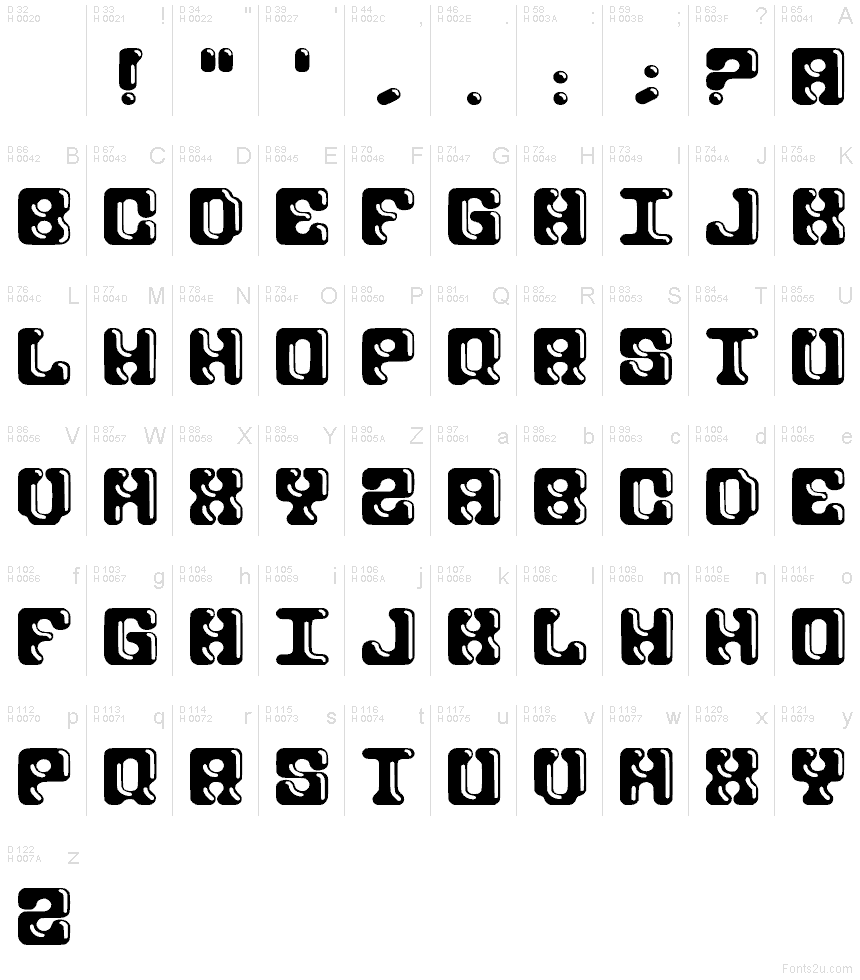
Chuche font by Diego Andaluz is a free groovy display typeface with an unmistakably squishy, puzzle-piece personality. Each letter feels like a chunky block that’s been carved away by inky droplets, creating bold silhouettes and playful negative spaces that lock together in a tight rhythm. The result is loud, tactile, and almost sculptural-like vintage psychedelic lettering pressed into thick black paint.
Using Chuche, your headlines don’t just talk, they ooze across the page. This free font shines on music and event posters, album covers, bold branding, streetwear graphics, stickers, and experimental packaging where you want a heavy, retro punch. Keep it big so the inner curves and blobs stay readable, and pair Chuche with a clean geometric sans for smaller supporting text to let its wild shapes take center stage.